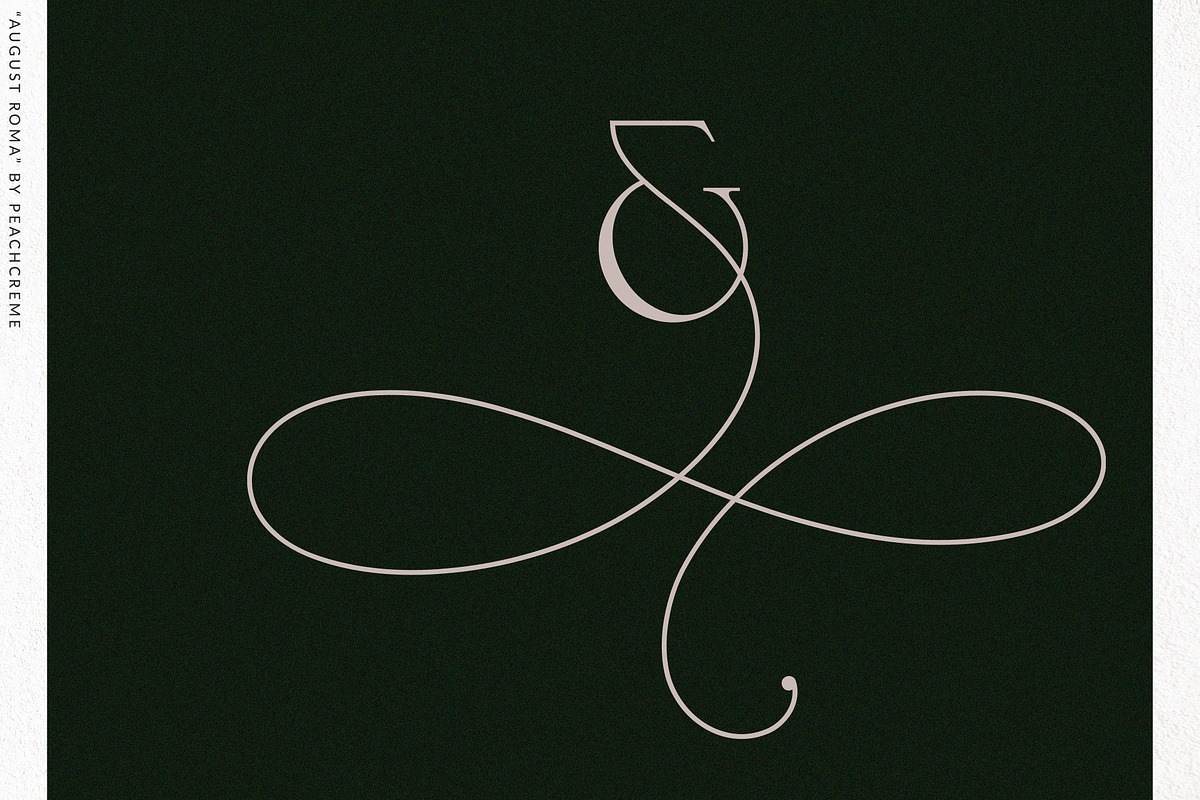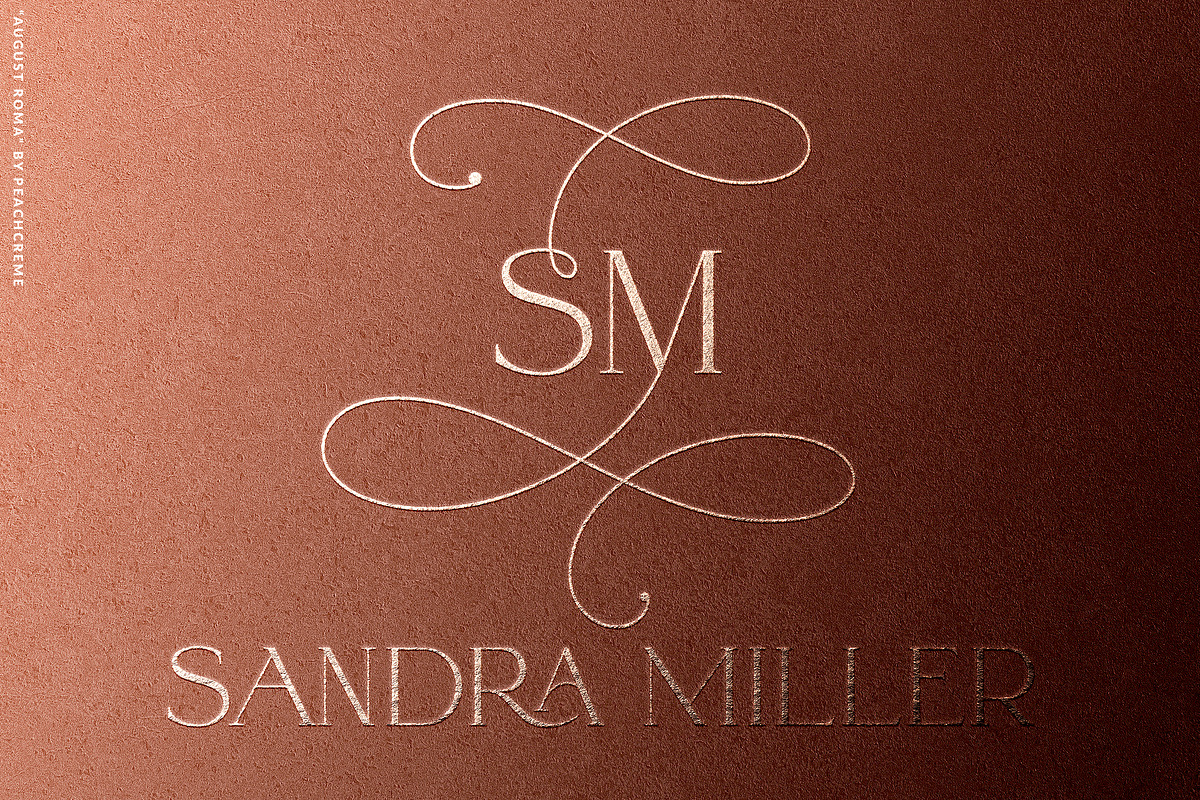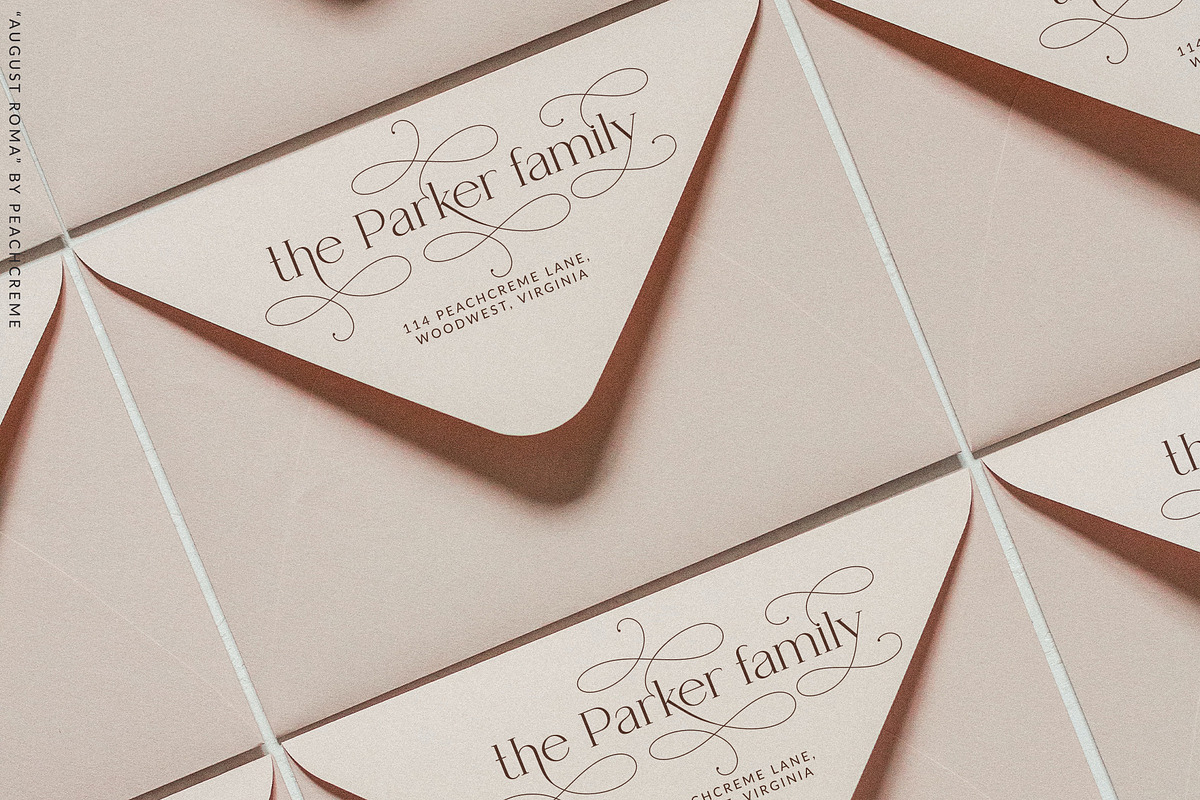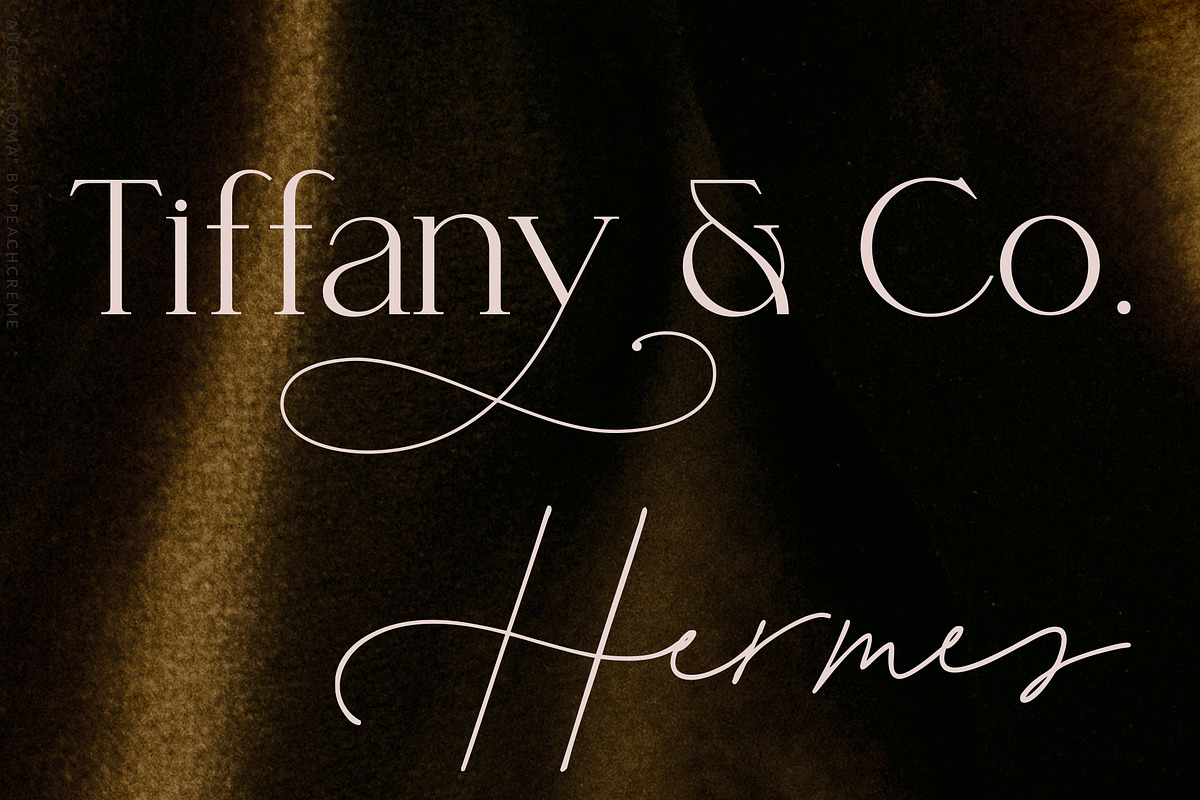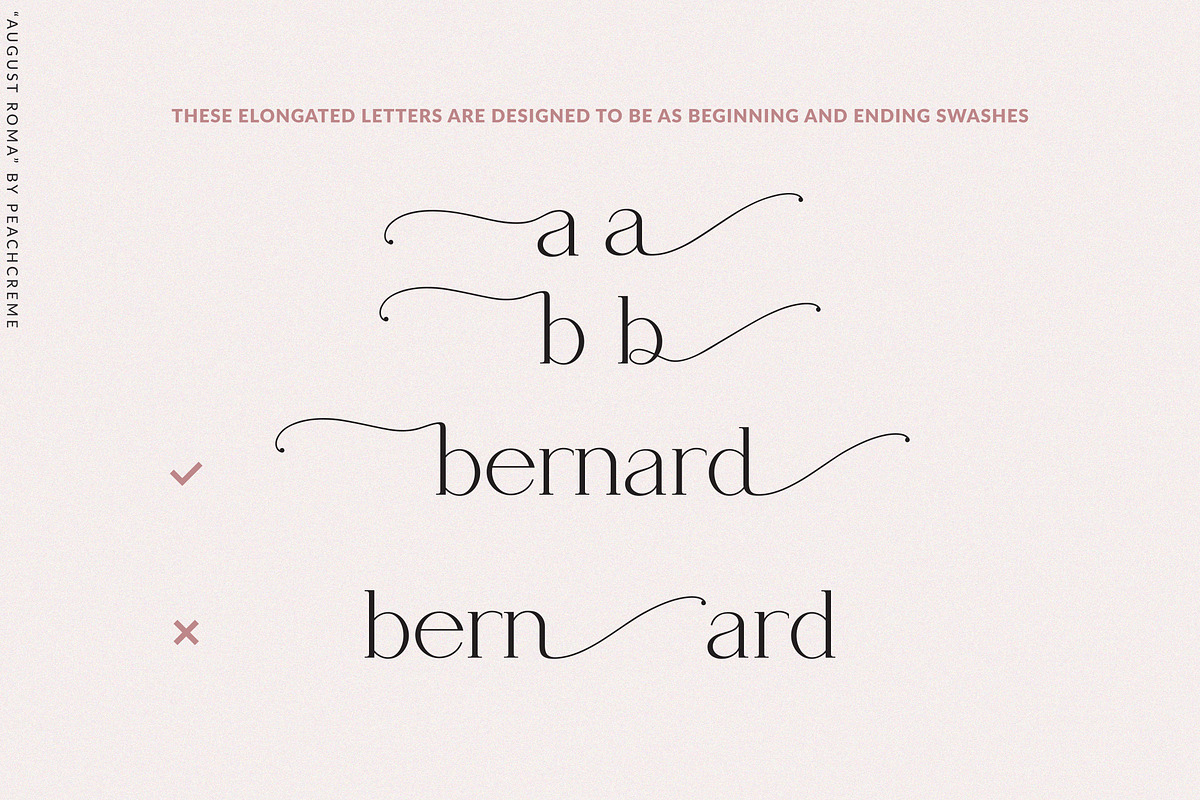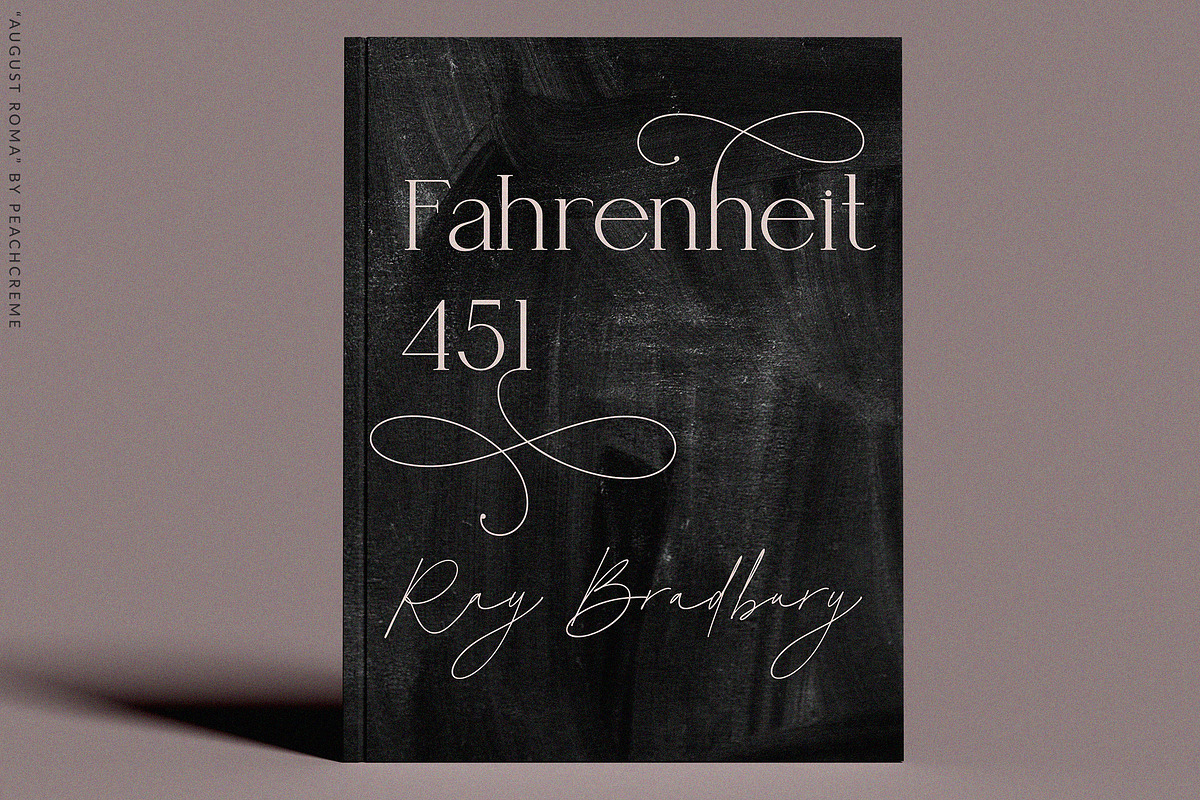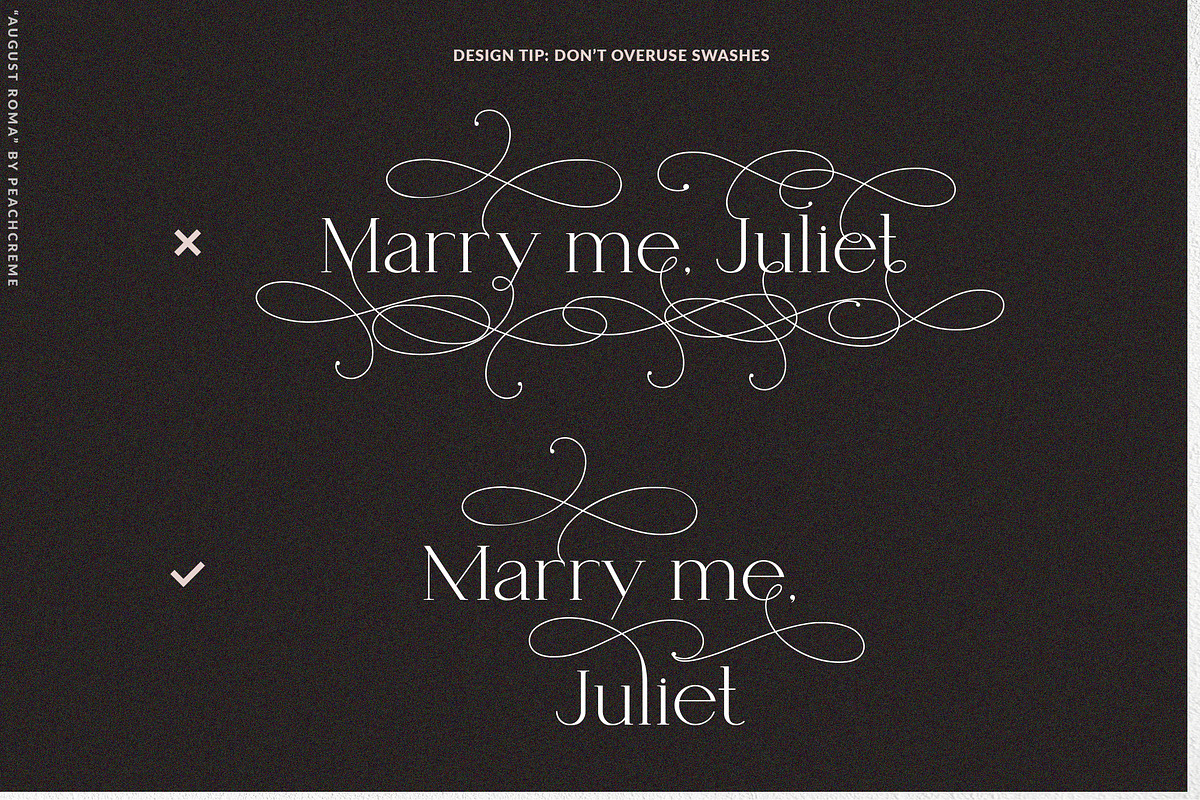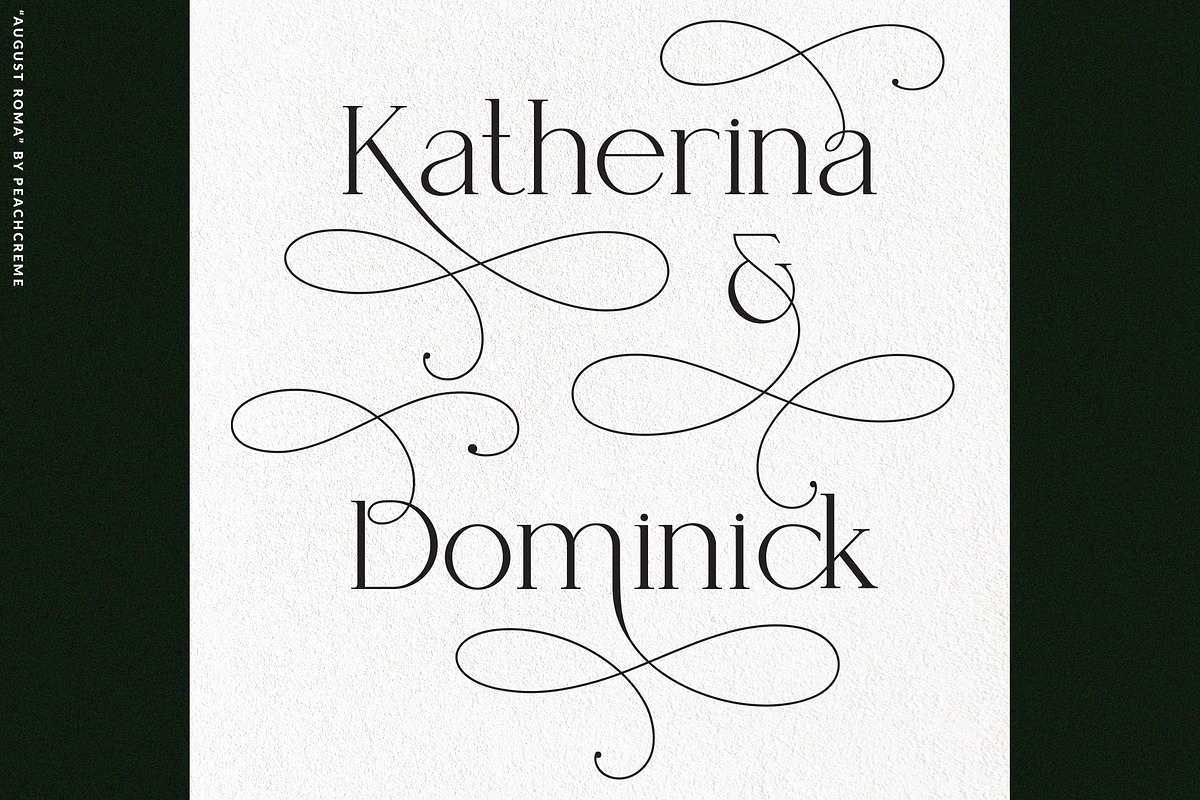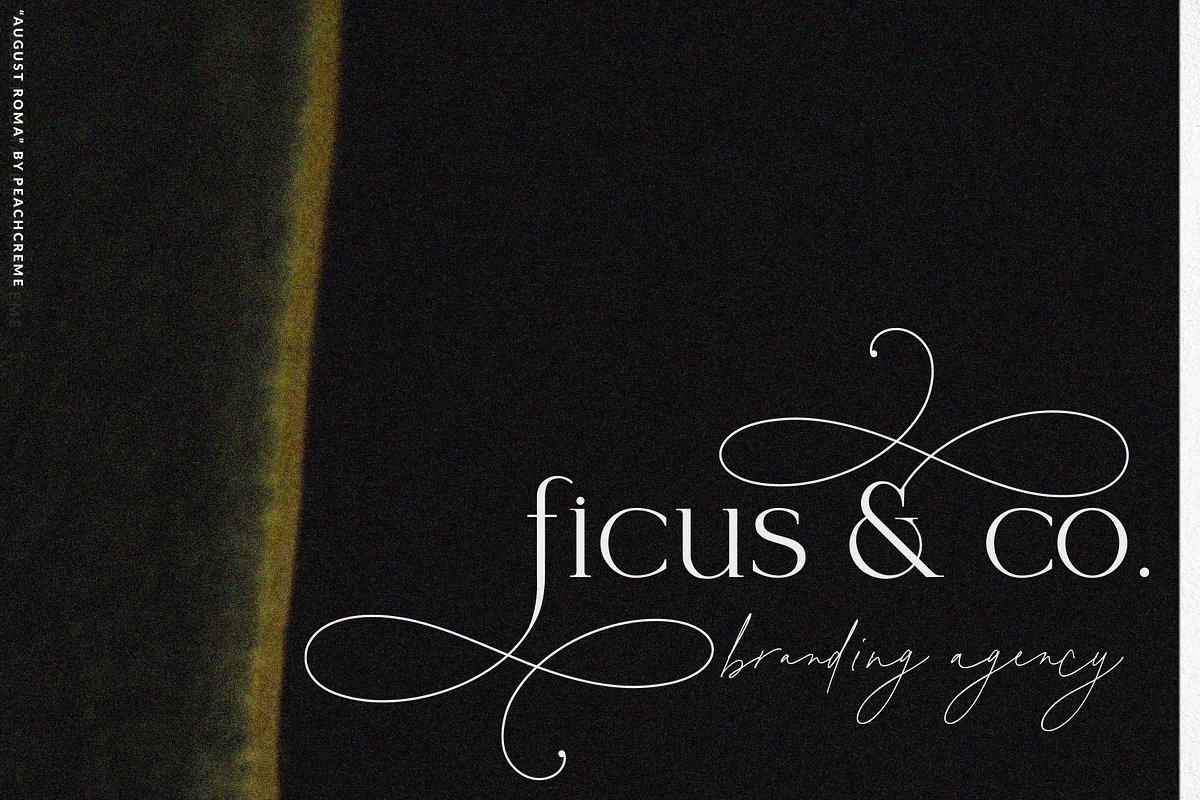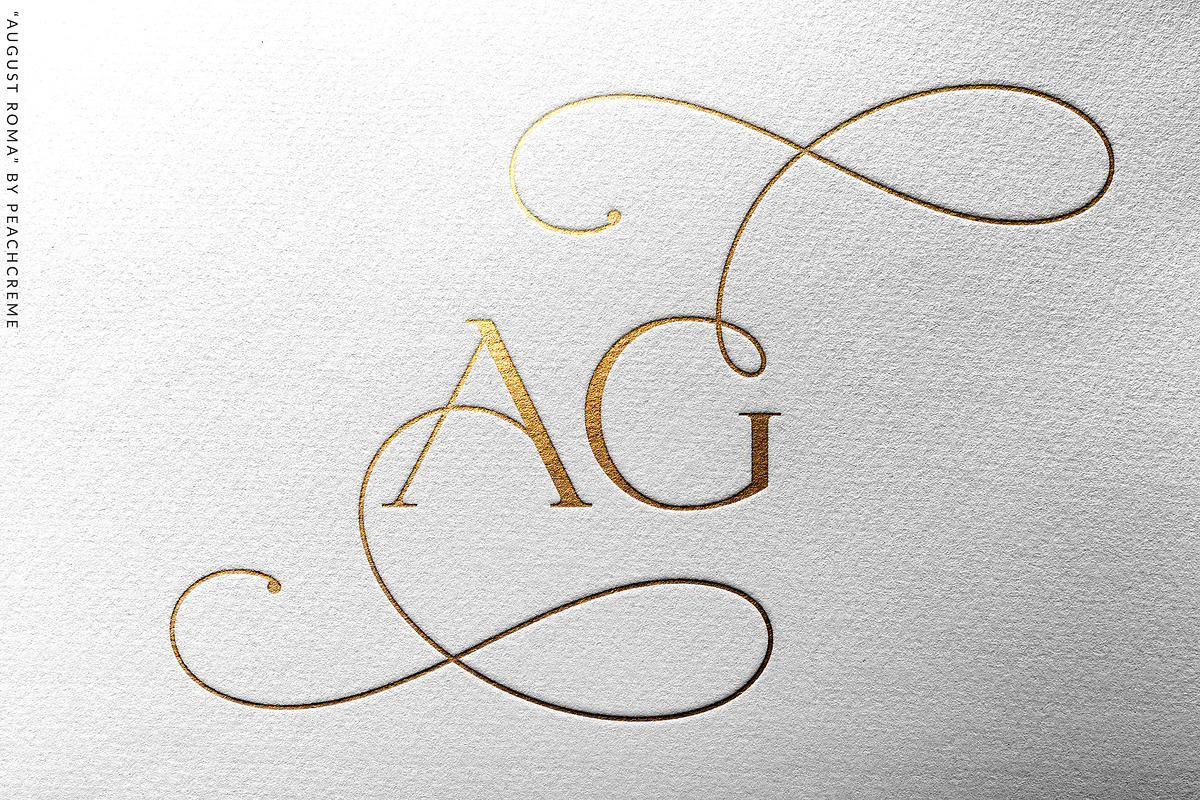
August Roma//Elegant Luxury Font Duo
I'm thrilled to present our new refined font fuo.
August Roma - born to be your fav elegant fonts. Create stunning branding, sleek wedding invites, versatile holiday cards, and sweet book covers.
August Roma Serif has all uppercase, lowercase, ampersand, numeral swashes. A stylish script compliments serif font perfectly and can be used solo as well without losing gorgeousness.